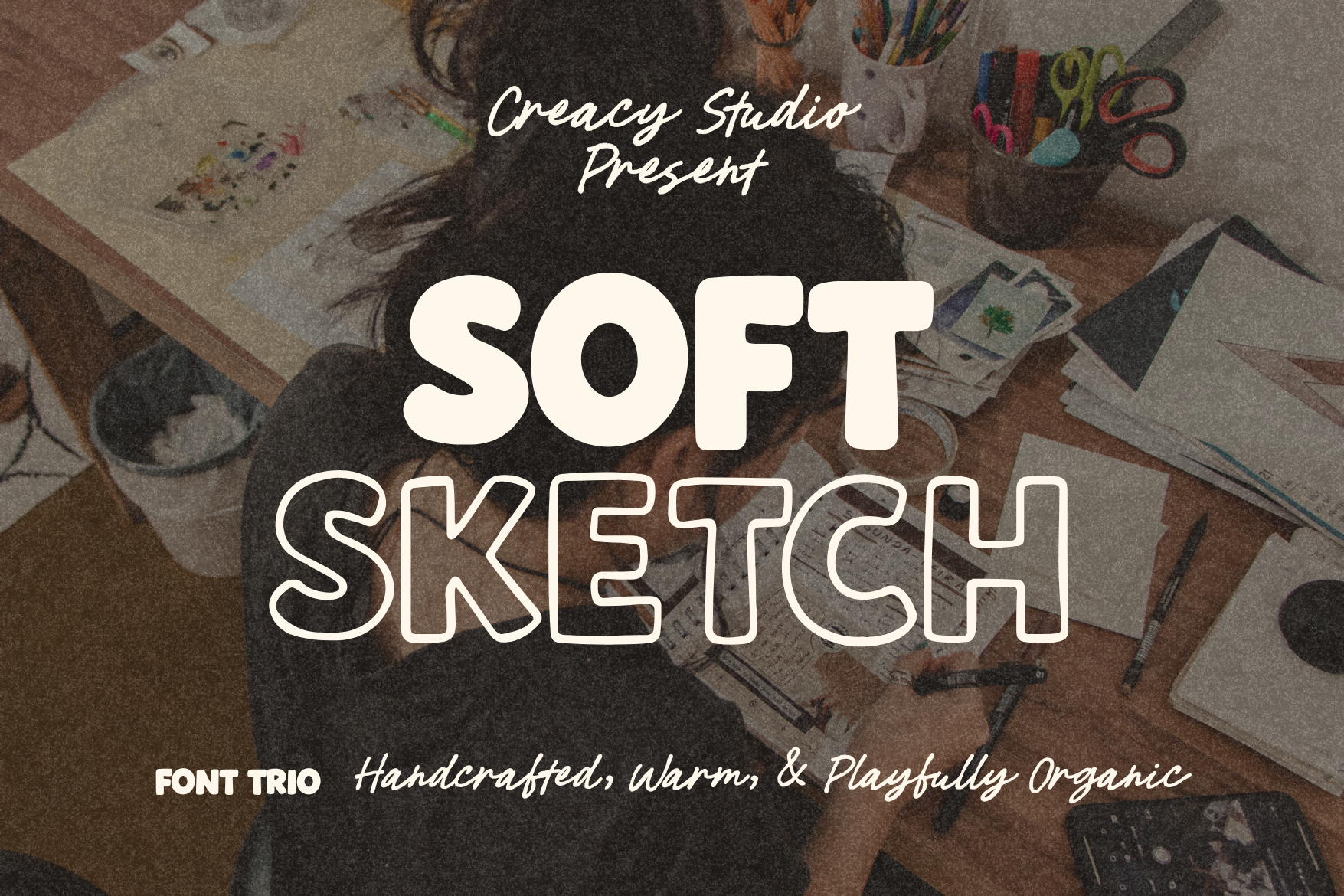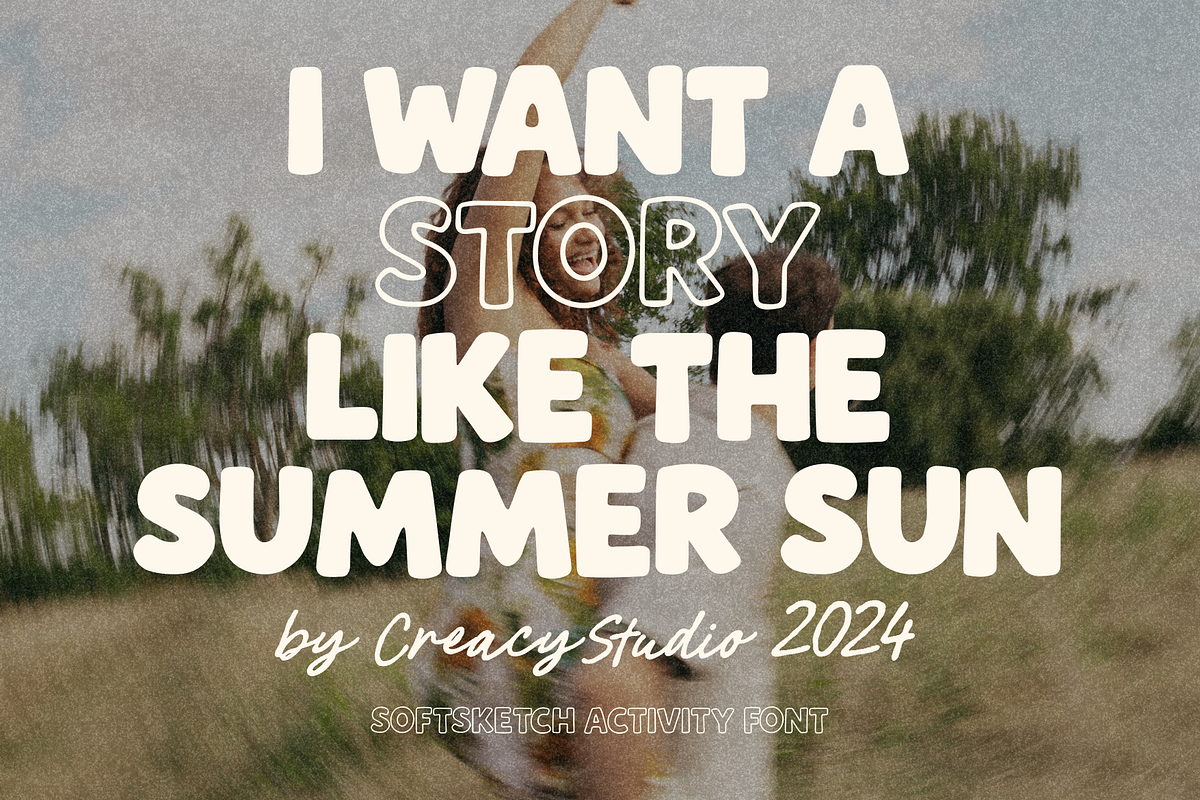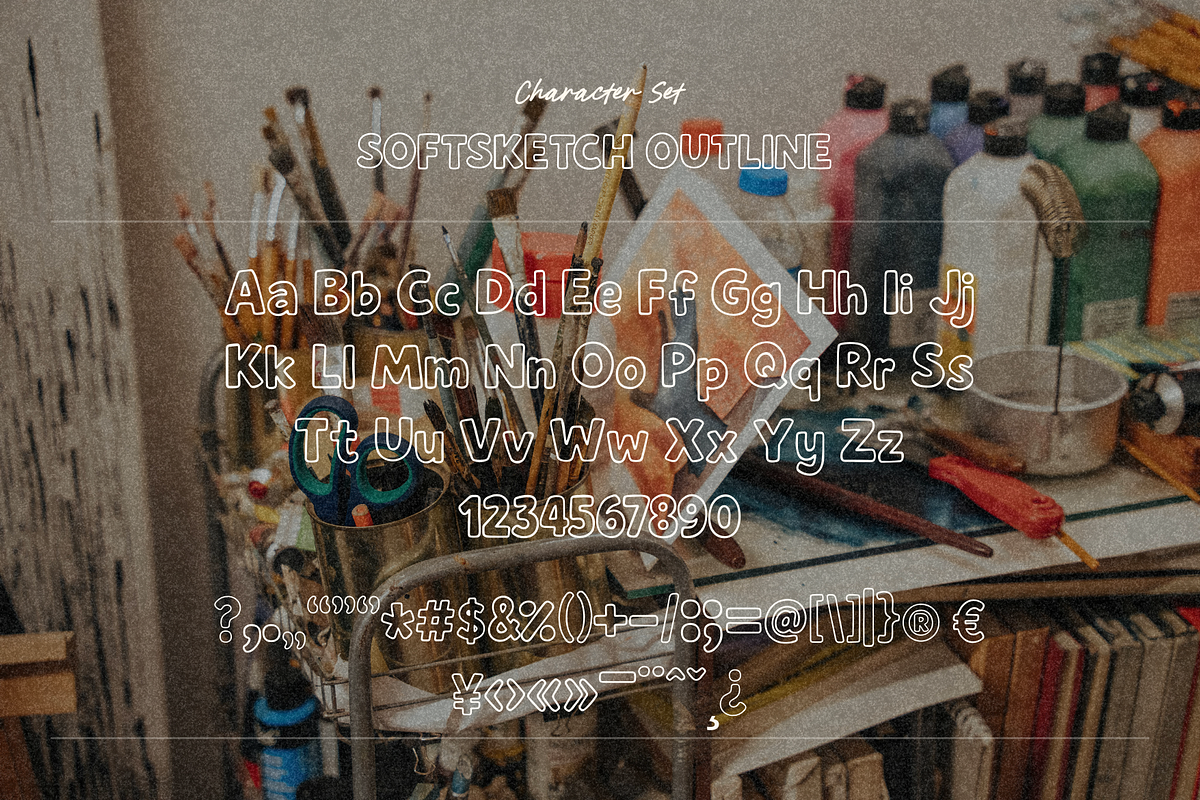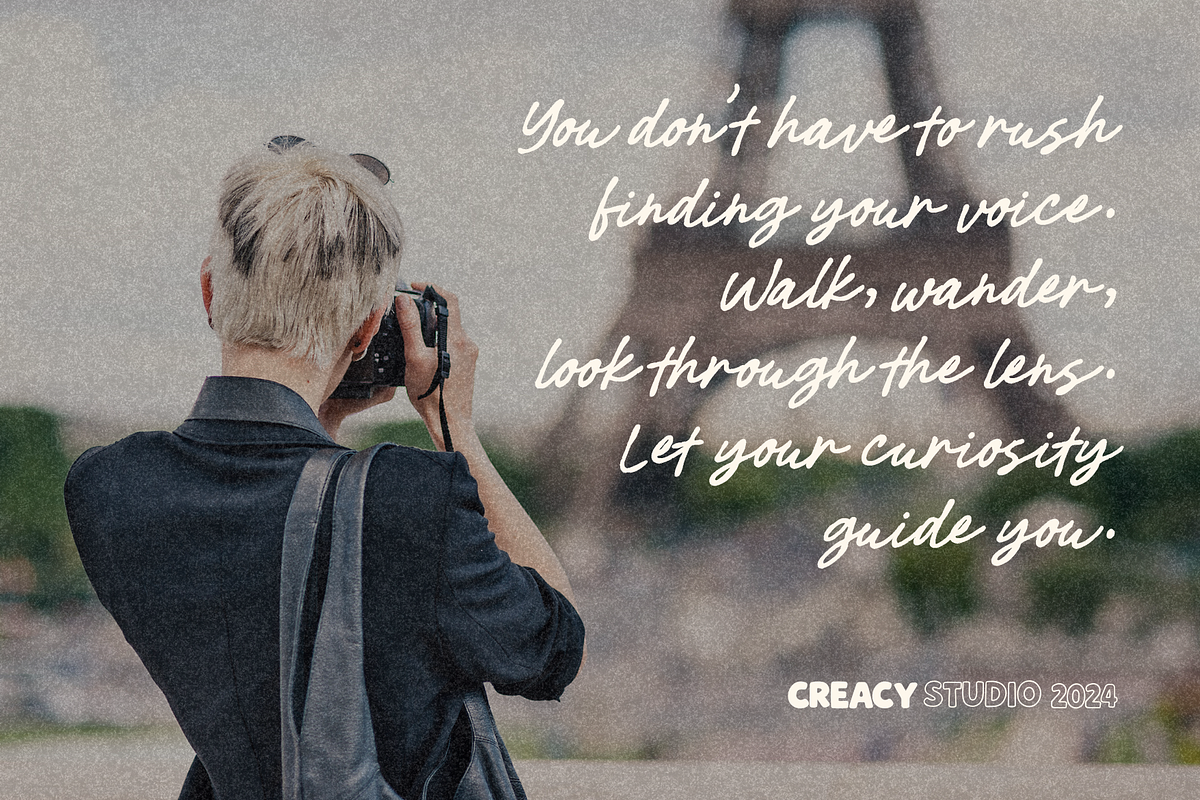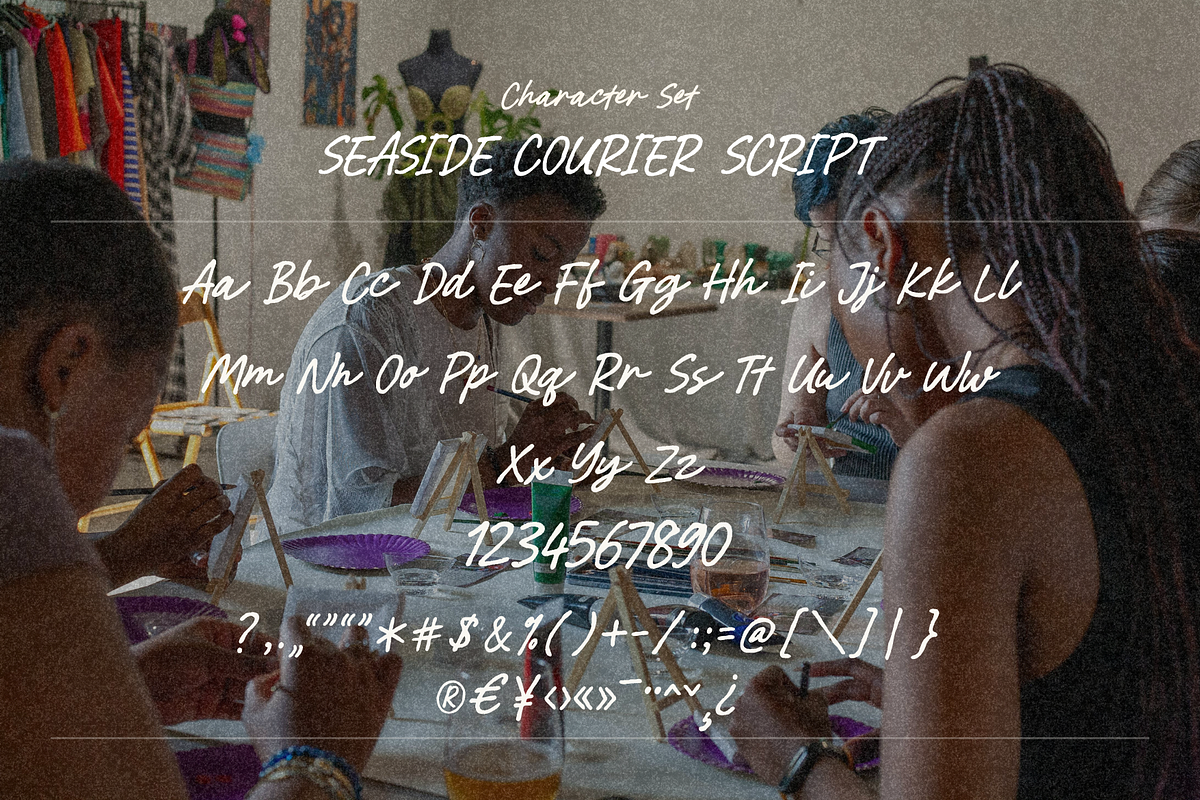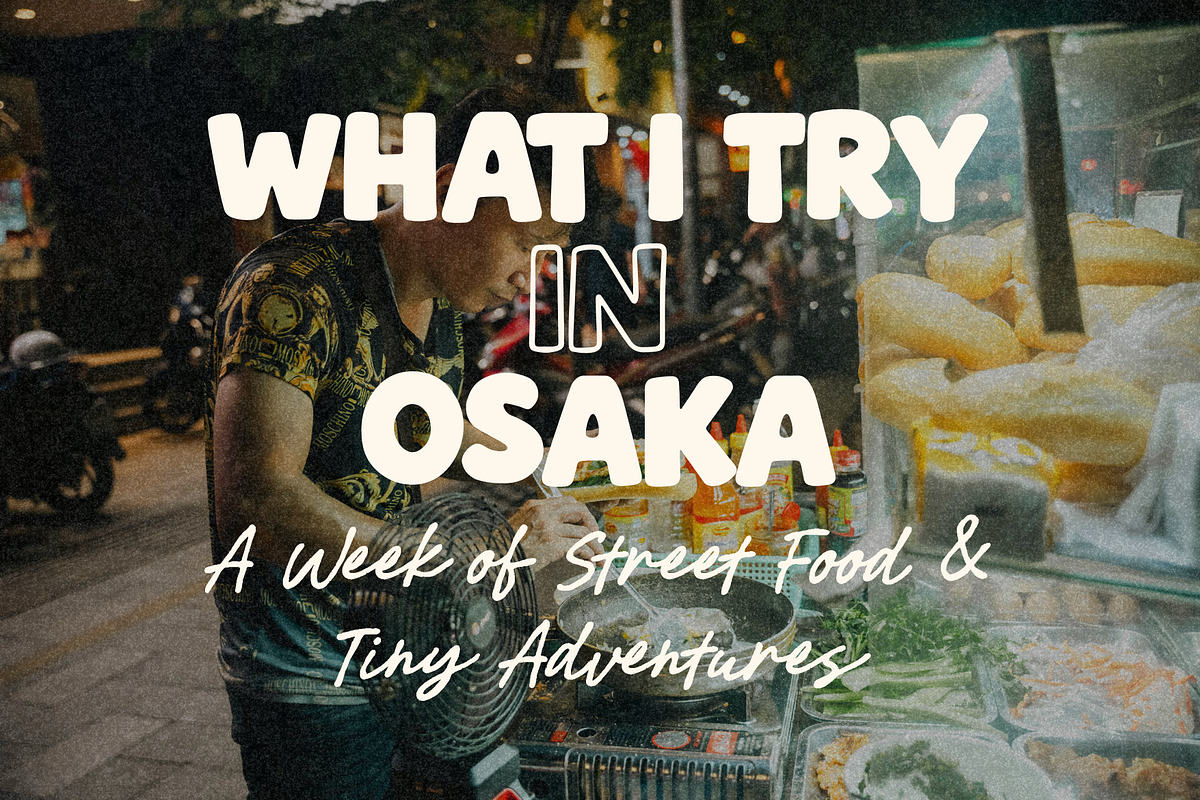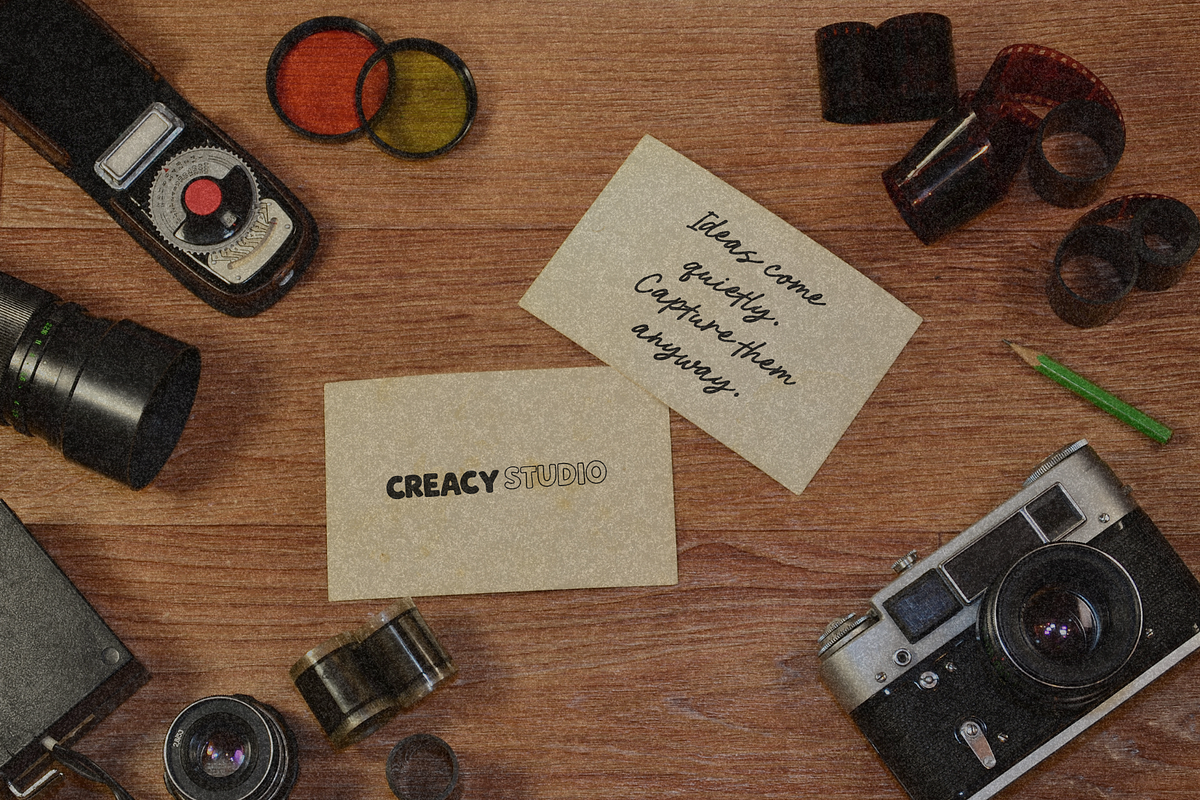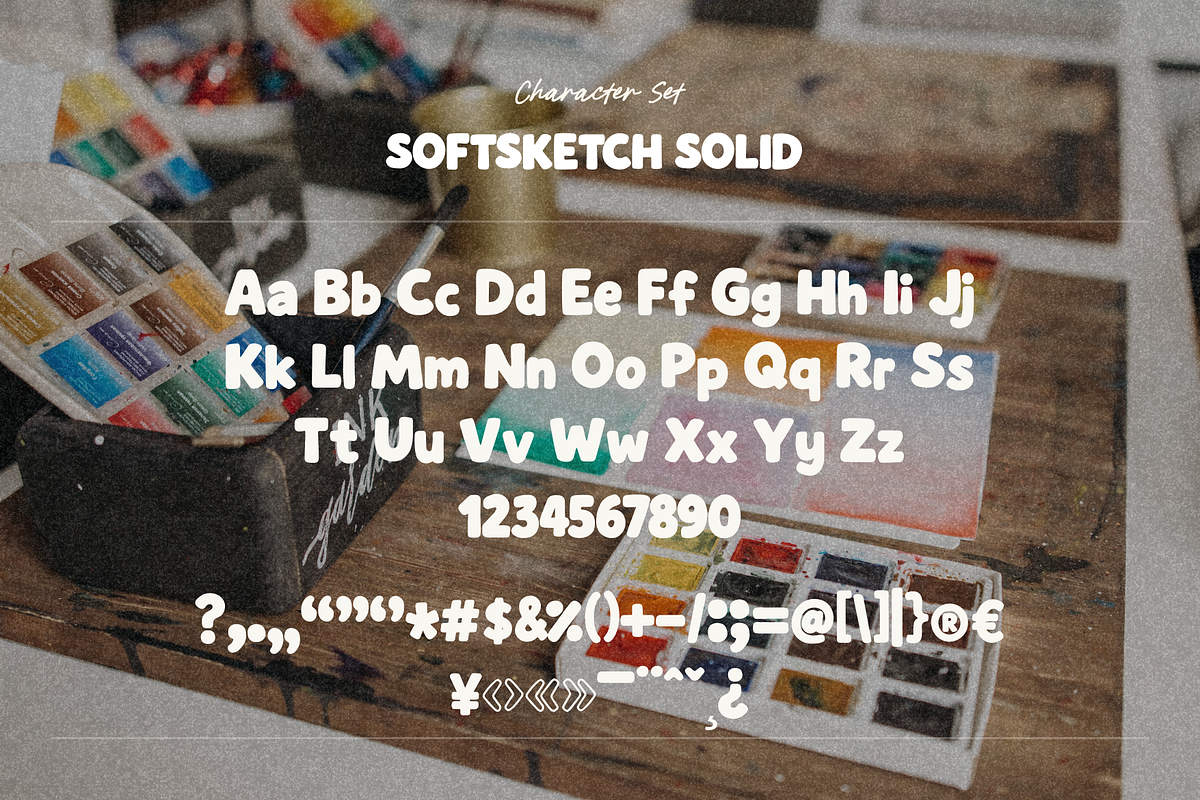
SoftSketch - Warm Organic Fonts
SoftSketch – Handcrafted Warm Font Trio
SoftSketch is a warm, handcrafted font trio created for designers and creative agencies who want typography with personality, softness, and a natural human touch. Each style is shaped with rounded, organic curves inspired by sketchbook lettering and analog creative processes, making it ideal for branding, social media, editorial layouts, lifestyle projects, and modern visual storytelling.
This family includes SoftSketch Solid, SoftSketch Outline, and SoftSketch Script. All three complement each other seamlessly, offering flexible combinations for titles, taglines, packaging, marketing materials, and creative studio assets.
SoftSketch brings a friendly, expressive, and authentic feel—perfect for brands that want to look approachable, creative, and visually warm.
Great For
- Creative agency branding
- Social media graphics
- Posters and editorial layouts
- Packaging and product labels
- Logo design and brand identity
- Lifestyle and photography content
- Journaling, quotes, and storytelling
- Marketing visuals and campaigns
- Organic, handcrafted aesthetic
- Soft rounded shapes with friendly energy
- Three complementary styles
- Strong display presence with gentle tone
- Works beautifully with photography and textures
- Consistent quality for modern creative branding